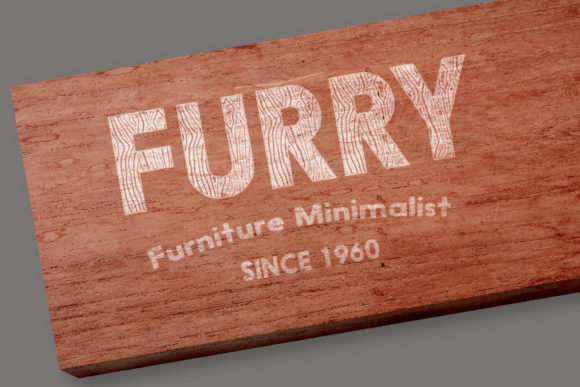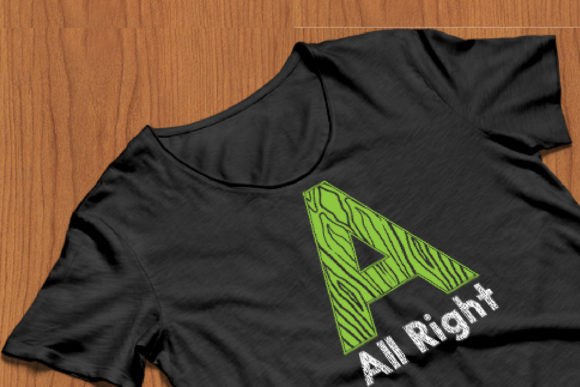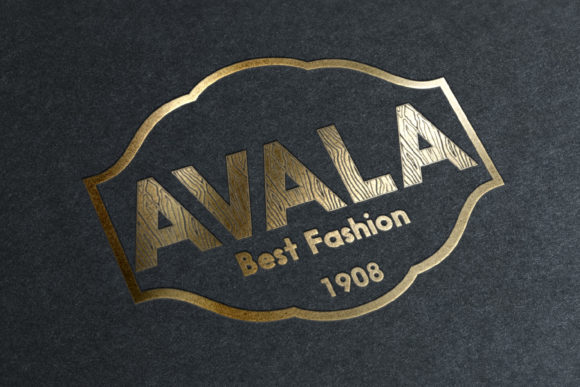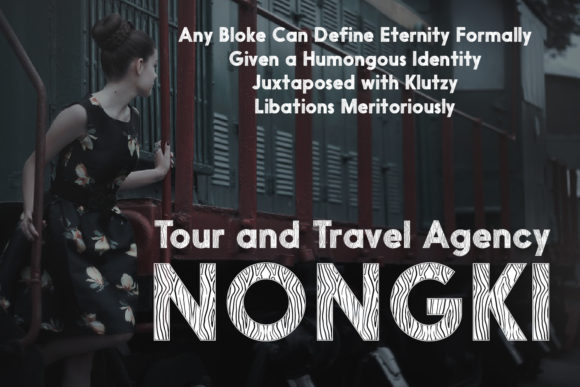
Introducing Contour Font: The Ultimate Display Font for Nature-Inspired Designs
Are you a designer or crafter looking for a font that can add a touch of ruggedness and sophistication to your projects? Look no further than Contour Font, a bold and thick lettered display font that’s perfect for a variety of designs related to nature, wood, wildlife, and more!
What is Contour Font?
Contour Font is a stunning display font that’s designed to make a statement. Its bold and thick lettering gives it a rugged and sturdy feel, making it perfect for designs that require a strong and confident look. Whether you’re working on a project related to outdoor adventures, environmental conservation, or simply want to add a touch of natural elegance to your design, Contour Font is the perfect choice.
Key Features of Contour Font
- Bold and Thick Lettering: Contour Font features bold and thick lettering that gives it a rugged and sturdy feel.
- Nature-Inspired: The font’s design is inspired by nature, making it perfect for projects related to outdoor adventures, wildlife, and environmental conservation.
- Highly Versatile: Contour Font can be used for a wide range of designs, from posters and flyers to logos and branding materials.
- Easily Readable: Despite its bold and thick lettering, Contour Font is easily readable, making it perfect for headlines and titles.
Use Cases for Contour Font
Contour Font is a highly versatile font that can be used for a wide range of designs. Here are some use cases to get you started:
- Outdoor Adventure Posters: Use Contour Font to create eye-catching posters for outdoor adventures, such as hiking, camping, or rock climbing.
- Wildlife Conservation Logos: Create a logo for your wildlife conservation organization using Contour Font, and make a bold statement about your commitment to protecting the natural world.
- Woodworking and Carpentry Branding: Use Contour Font to create a brand identity for your woodworking or carpentry business, and add a touch of rustic elegance to your marketing materials.
- Environmental Non-Profit Materials: Create a powerful and compelling message for your environmental non-profit organization using Contour Font, and inspire people to take action to protect the planet.
Tips for Using Contour Font
Here are some tips to help you get the most out of Contour Font:
- Use it as a Headline Font: Contour Font is perfect for headlines and titles, so use it to make a bold statement and grab people’s attention.
- Pair it with a Serif Font: Pair Contour Font with a serif font, such as Arial or Times New Roman, to create a striking contrast and add visual interest to your design.
- Experiment with Colors: Contour Font looks great in a range of colors, from earthy tones like green and brown to bold and bright colors like red and orange.
- Use it in Combination with Natural Textures: Add an extra layer of depth and interest to your design by combining Contour Font with natural textures, such as wood grain or stone.
Contour Font is a powerful and versatile display font that’s perfect for designers and crafters who want to add a touch of ruggedness and sophistication to their projects. With its bold and thick lettering, nature-inspired design, and highly versatile use cases, Contour Font is the perfect choice for a wide range of designs related to nature, wood, wildlife, and more. So why wait? Download Contour Font today and start creating stunning designs that make a statement!